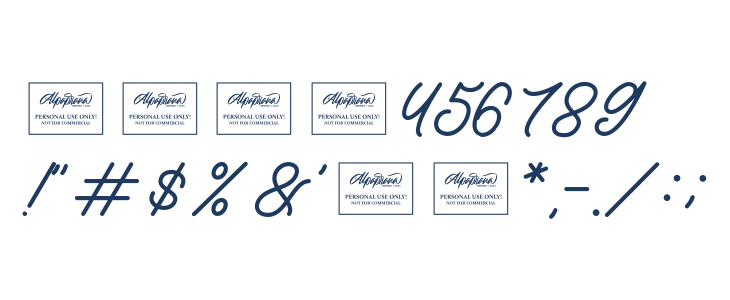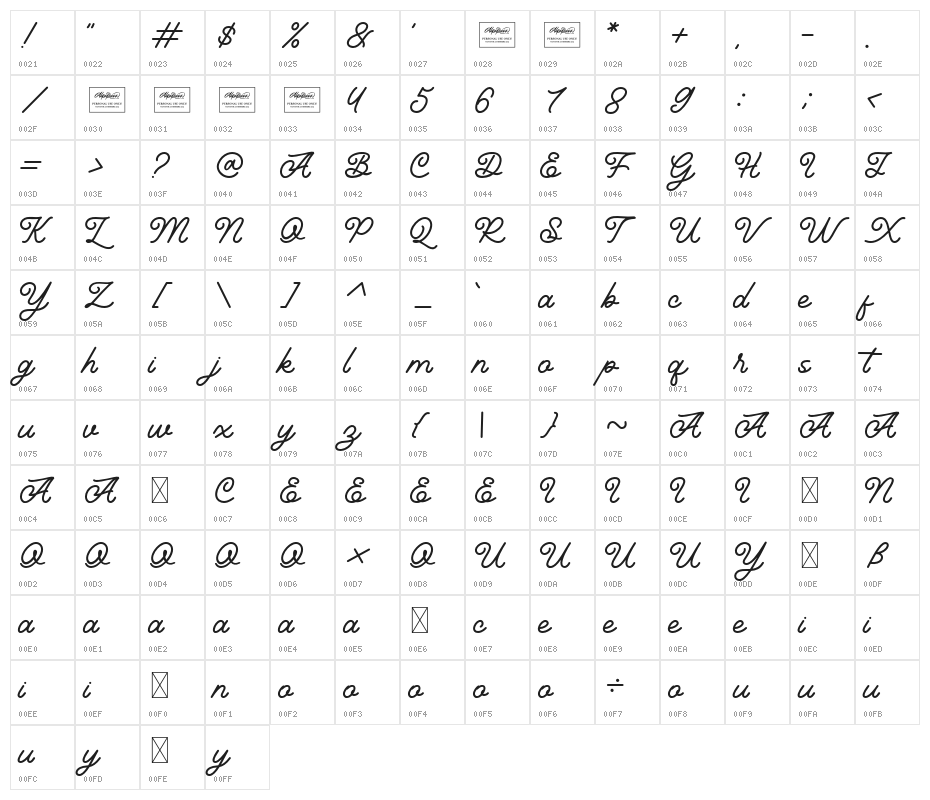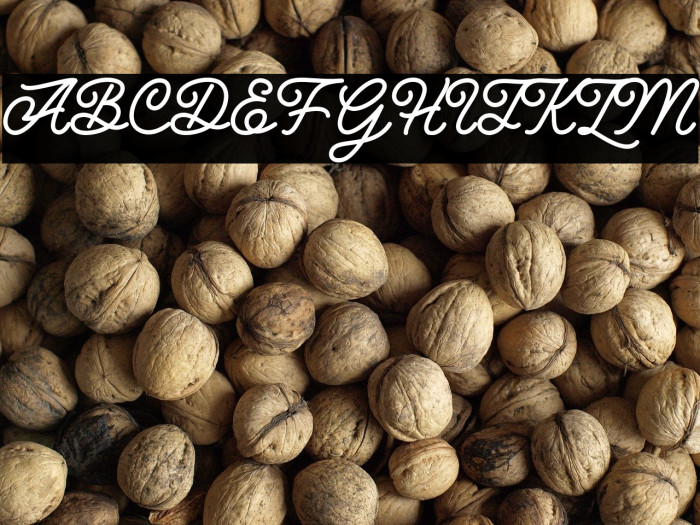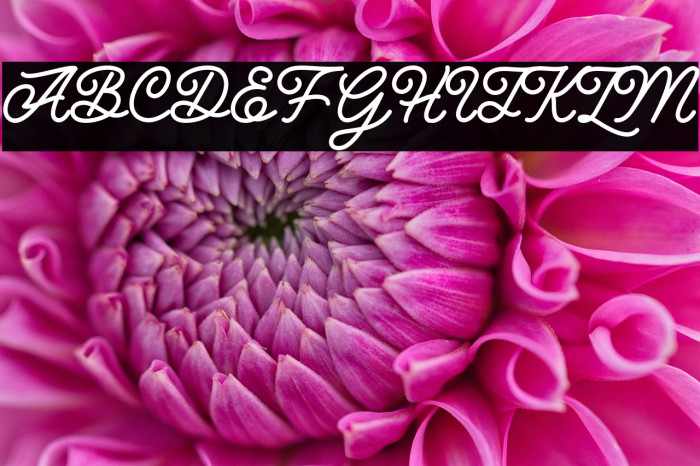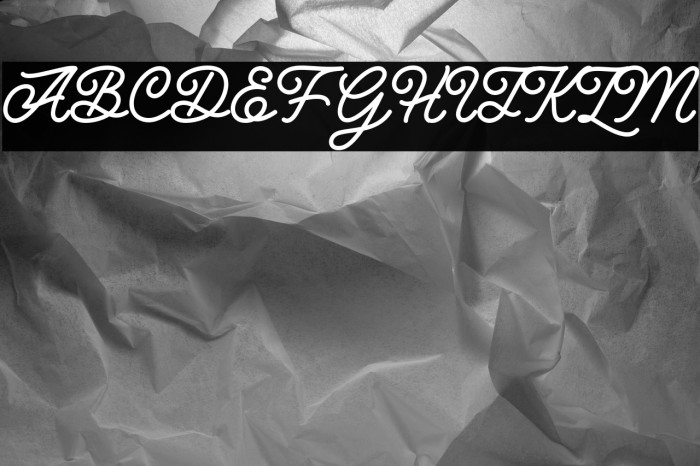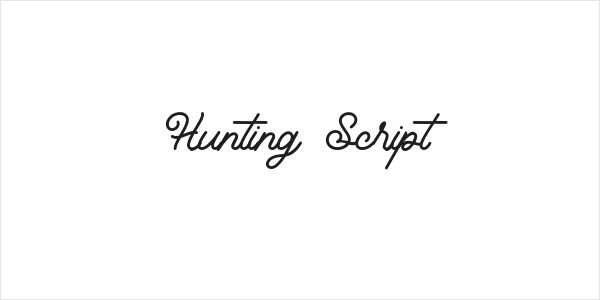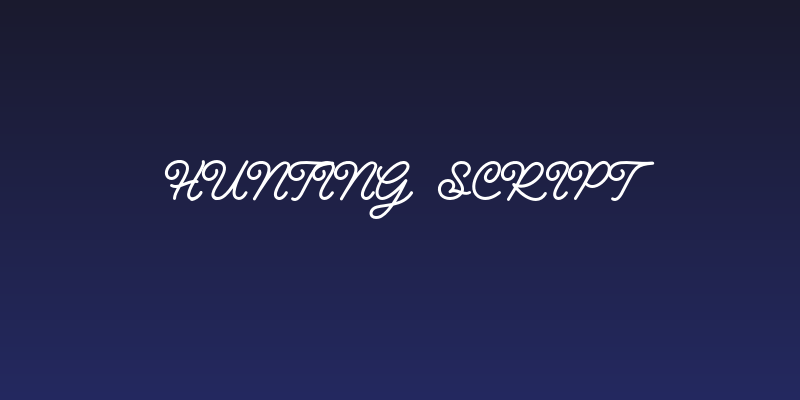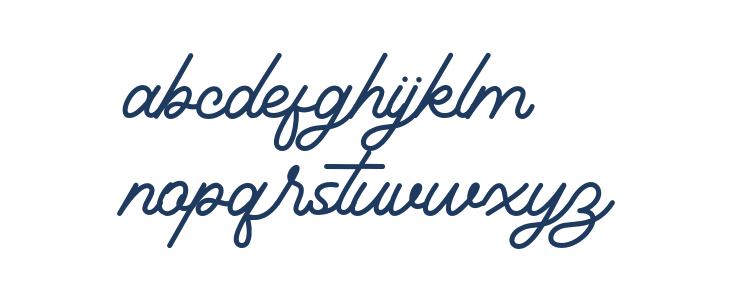
Hunting Script Font
Hunting Script Description
This elegant script font features a flowing, cursive style that mimics the fluidity of handwriting. The characters are interconnected, creating a seamless and continuous look. The uppercase letters are ornate and slightly larger, while the lowercase letters maintain a consistent height, enhancing readability. The numbers and special characters are designed to match the overall script style, adding a touch of sophistication. The font's smooth curves and loops give it a graceful and classic appearance, making it suitable for formal and decorative applications.
Overall StyleClassic
Use CaseLogos, Invitations, Decorative text
Proposed ProjectsIdeal for wedding invitations, greeting cards, elegant branding, and decorative signage.